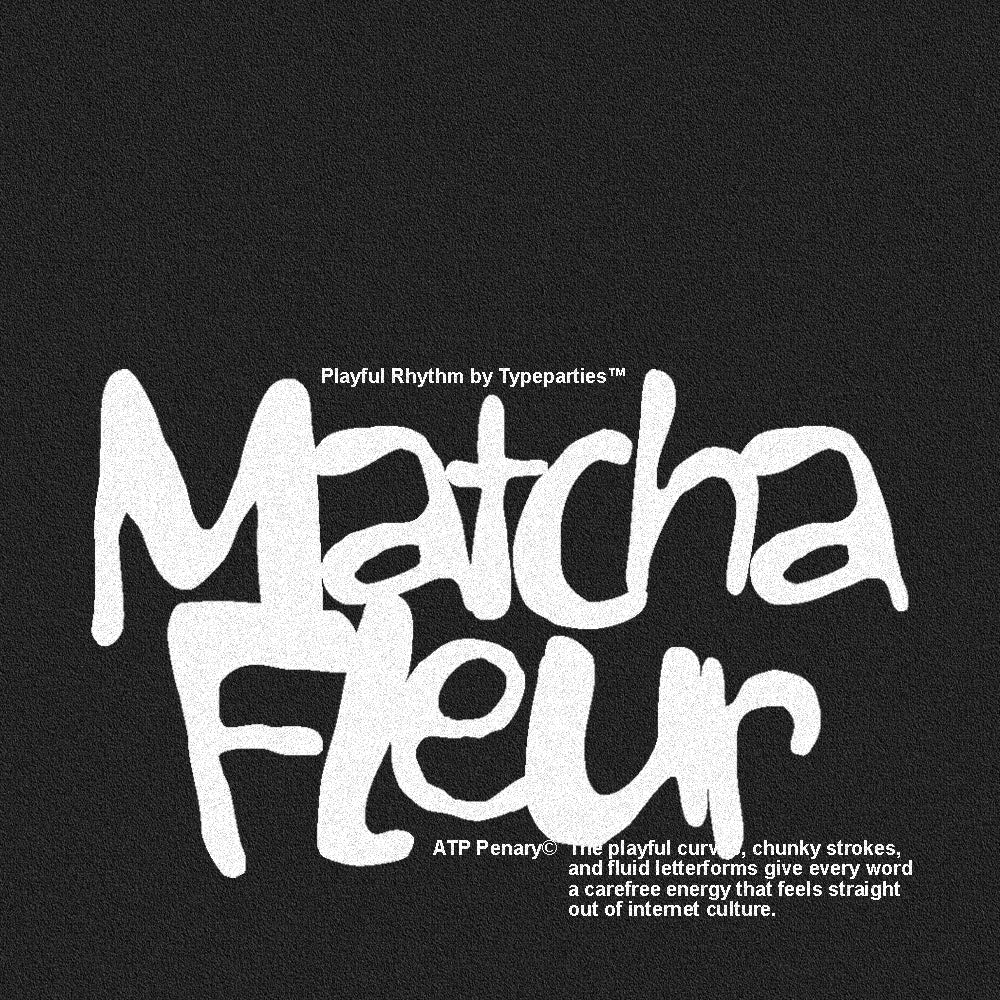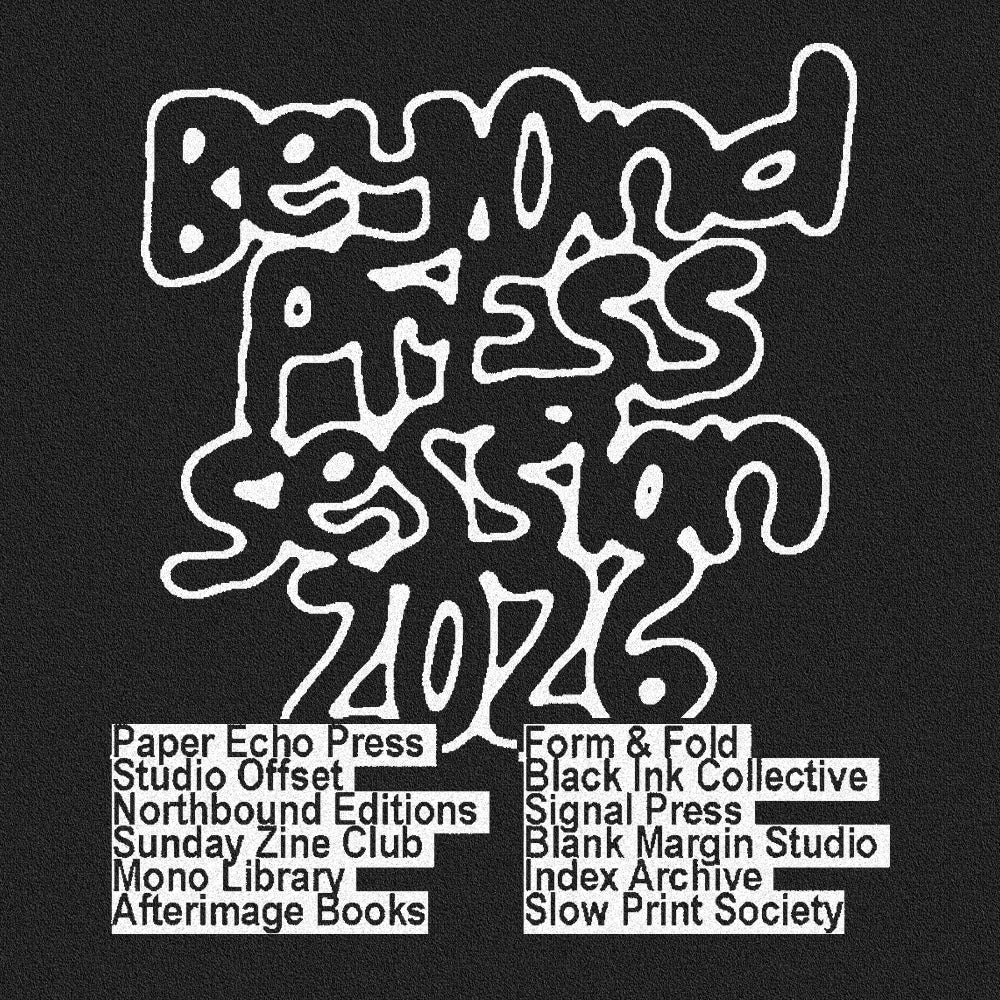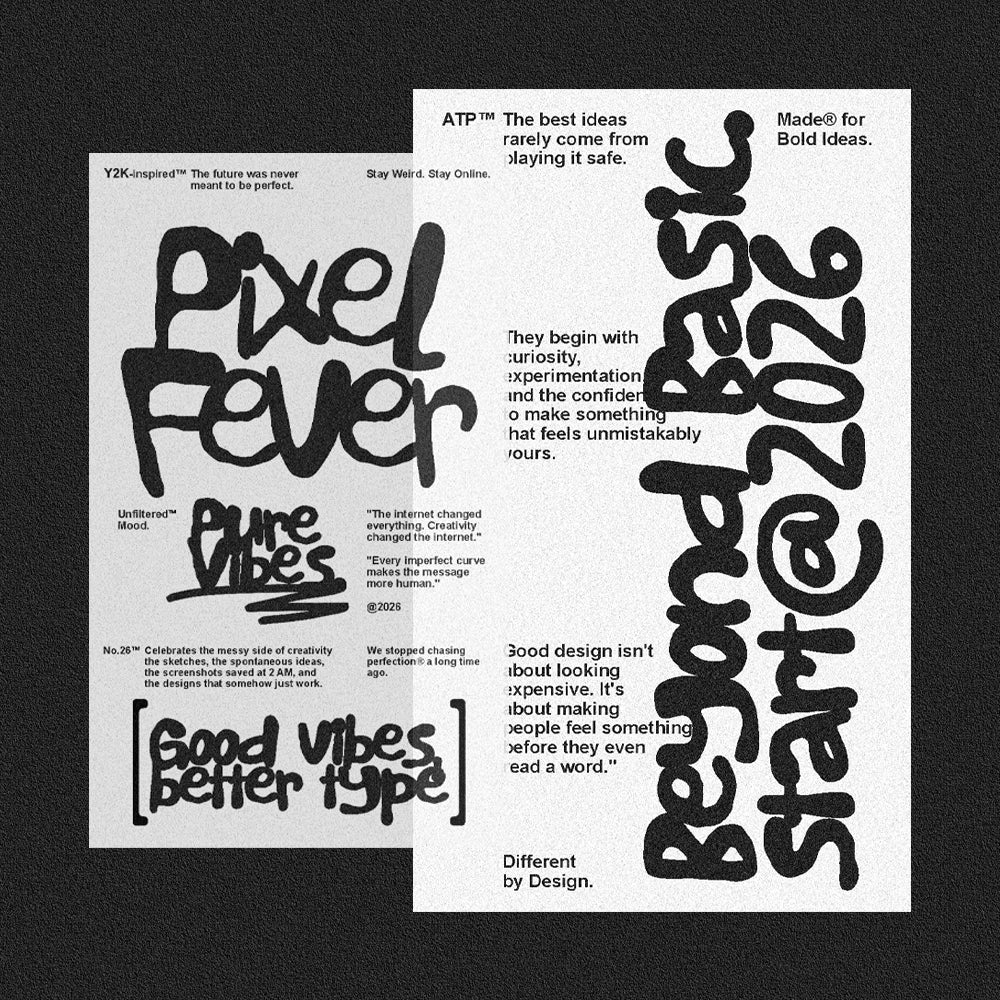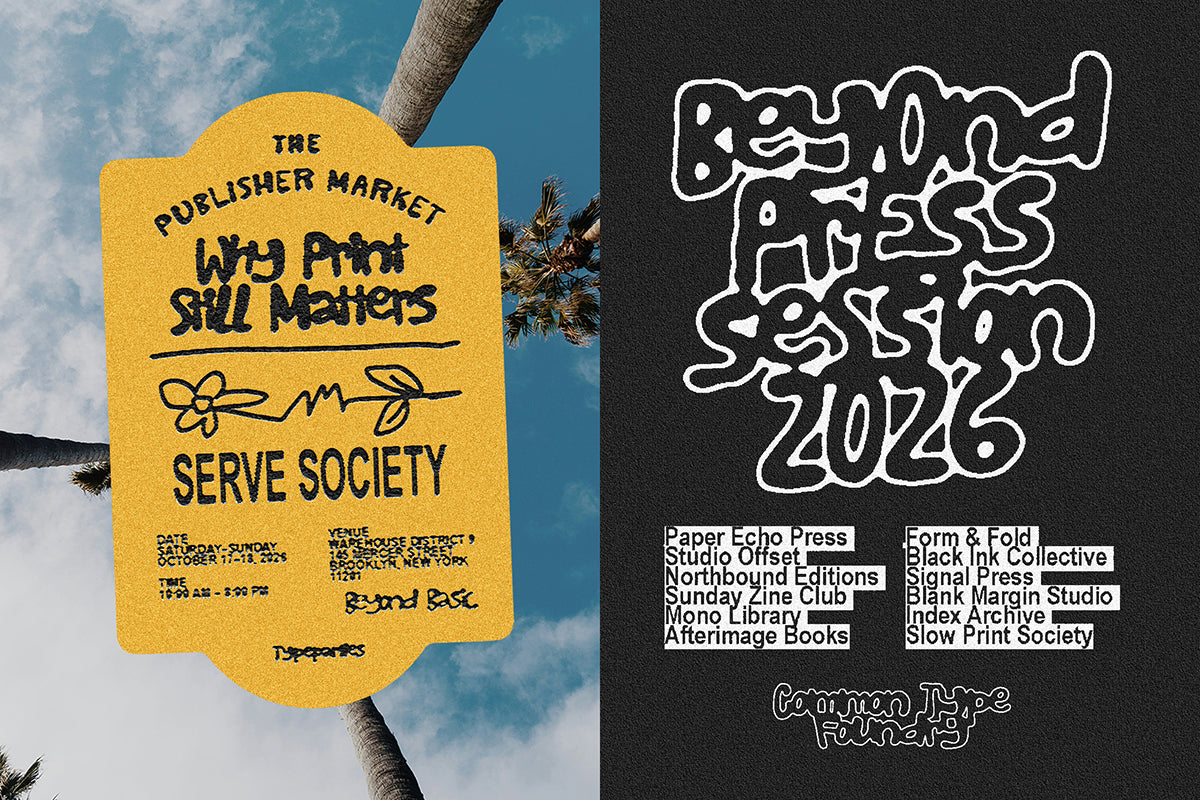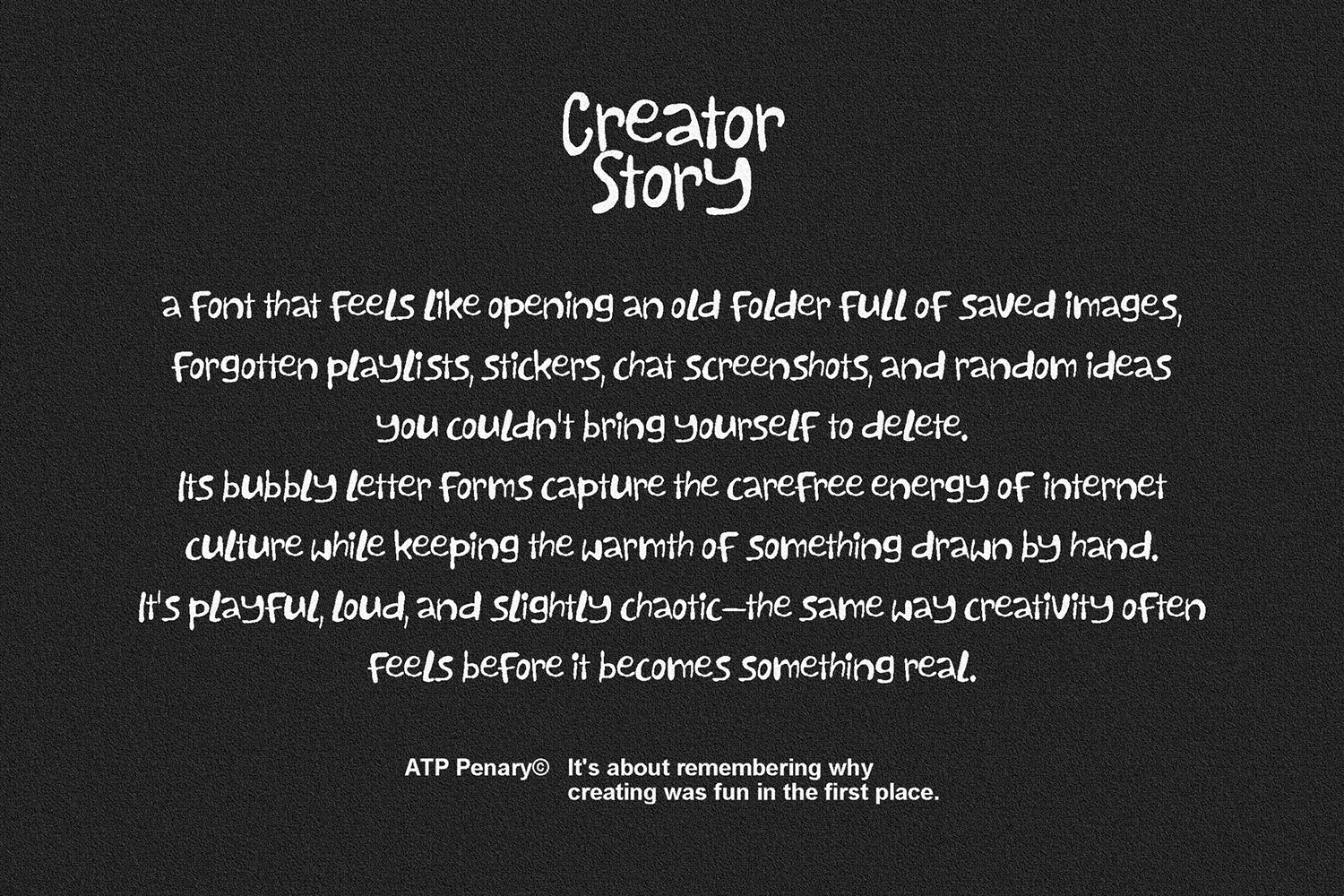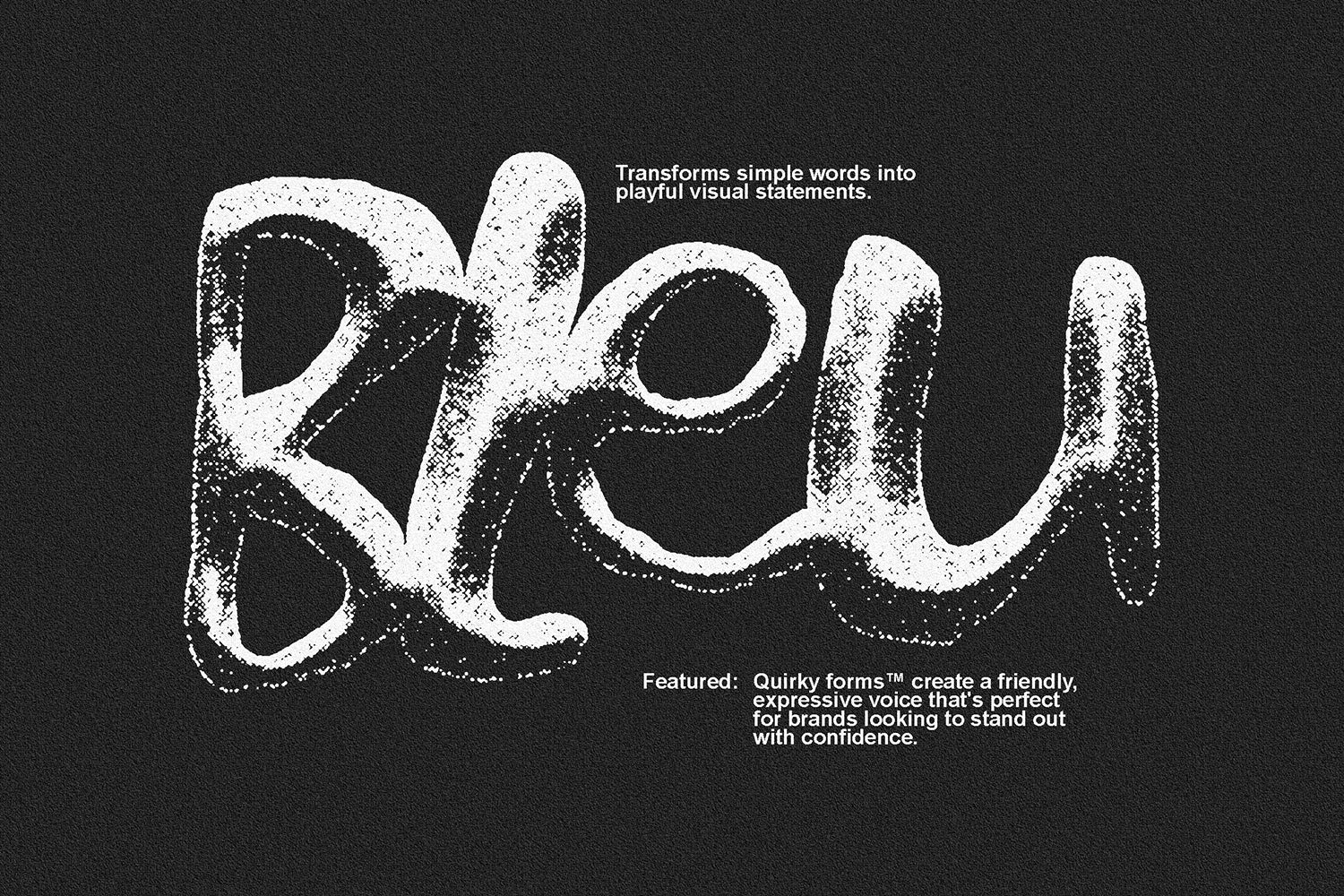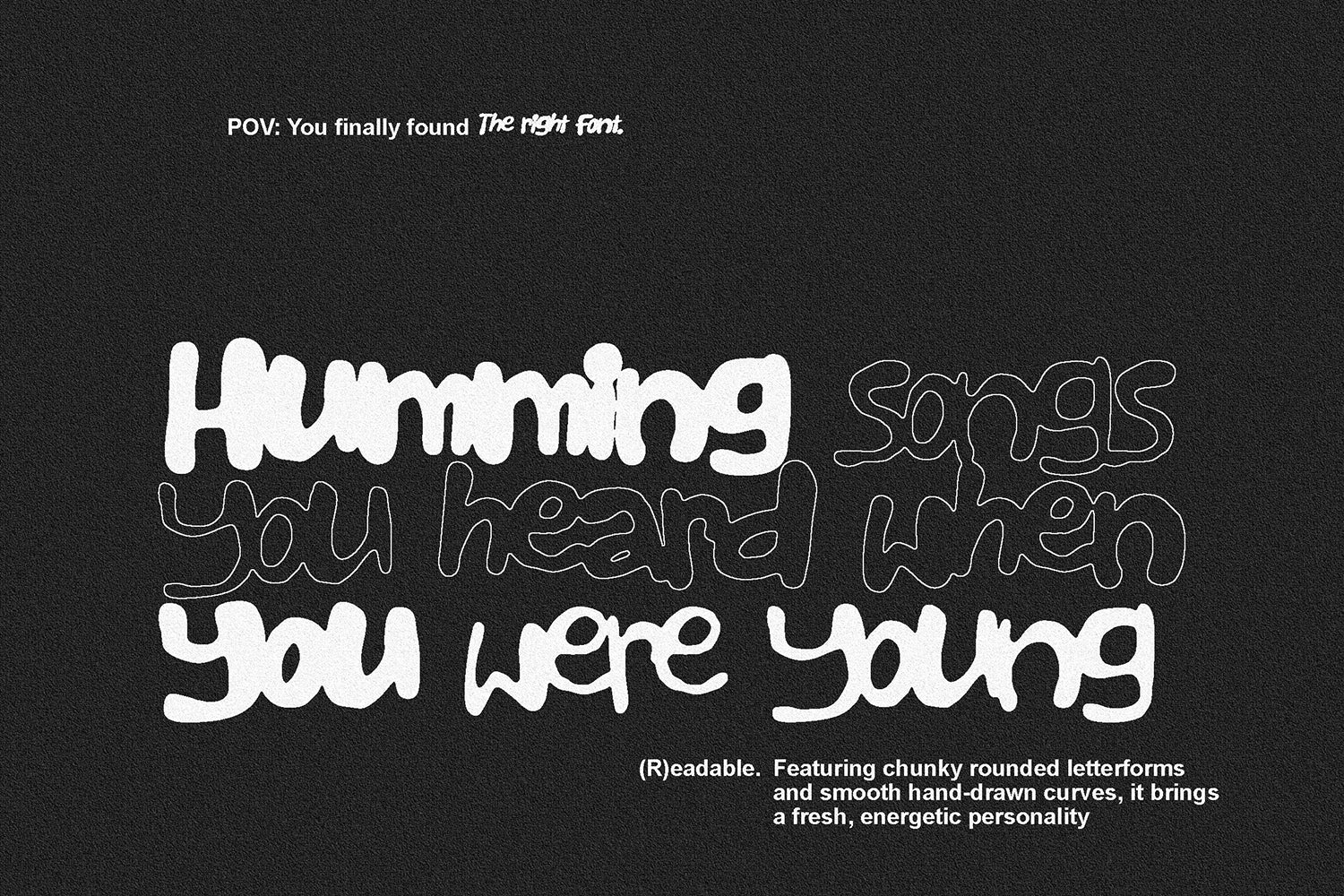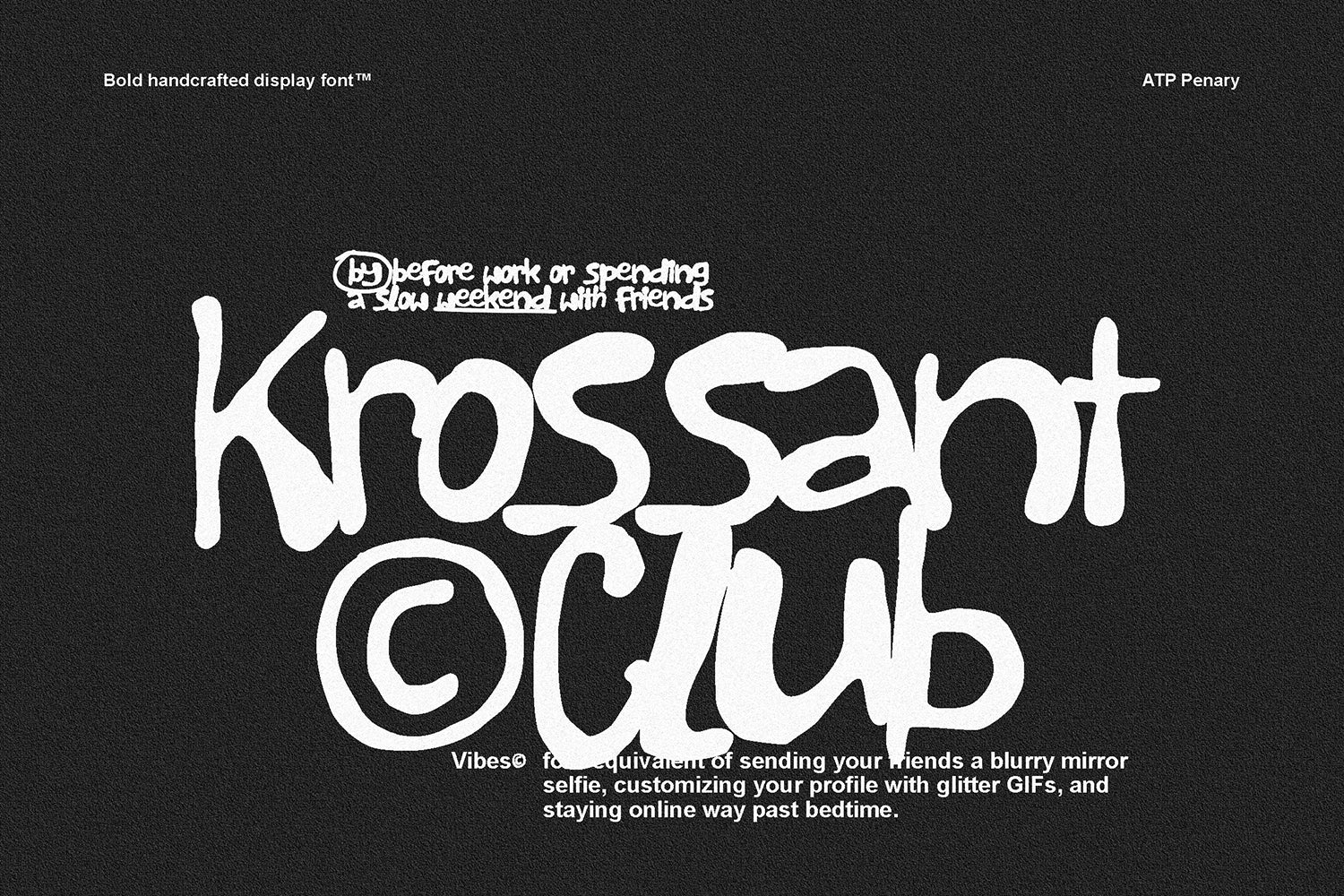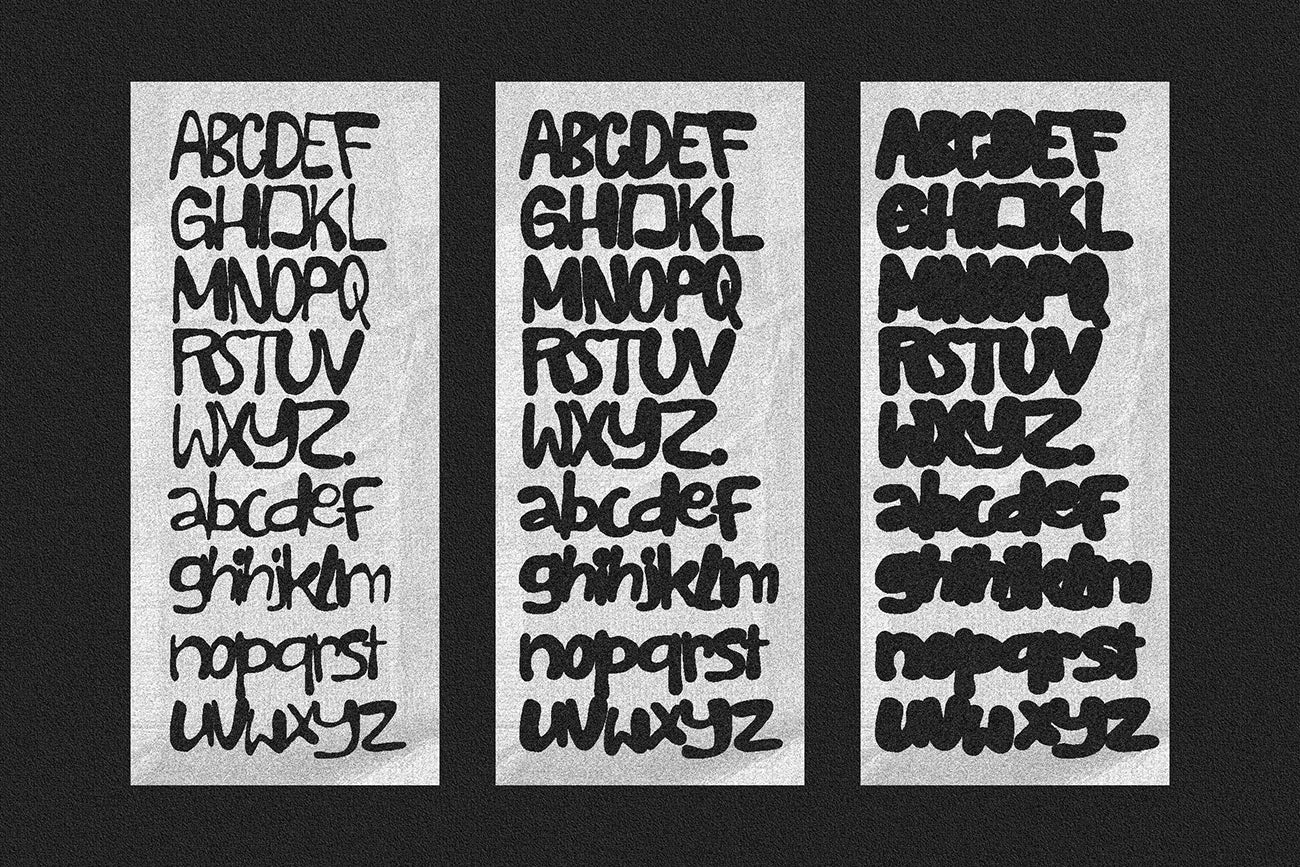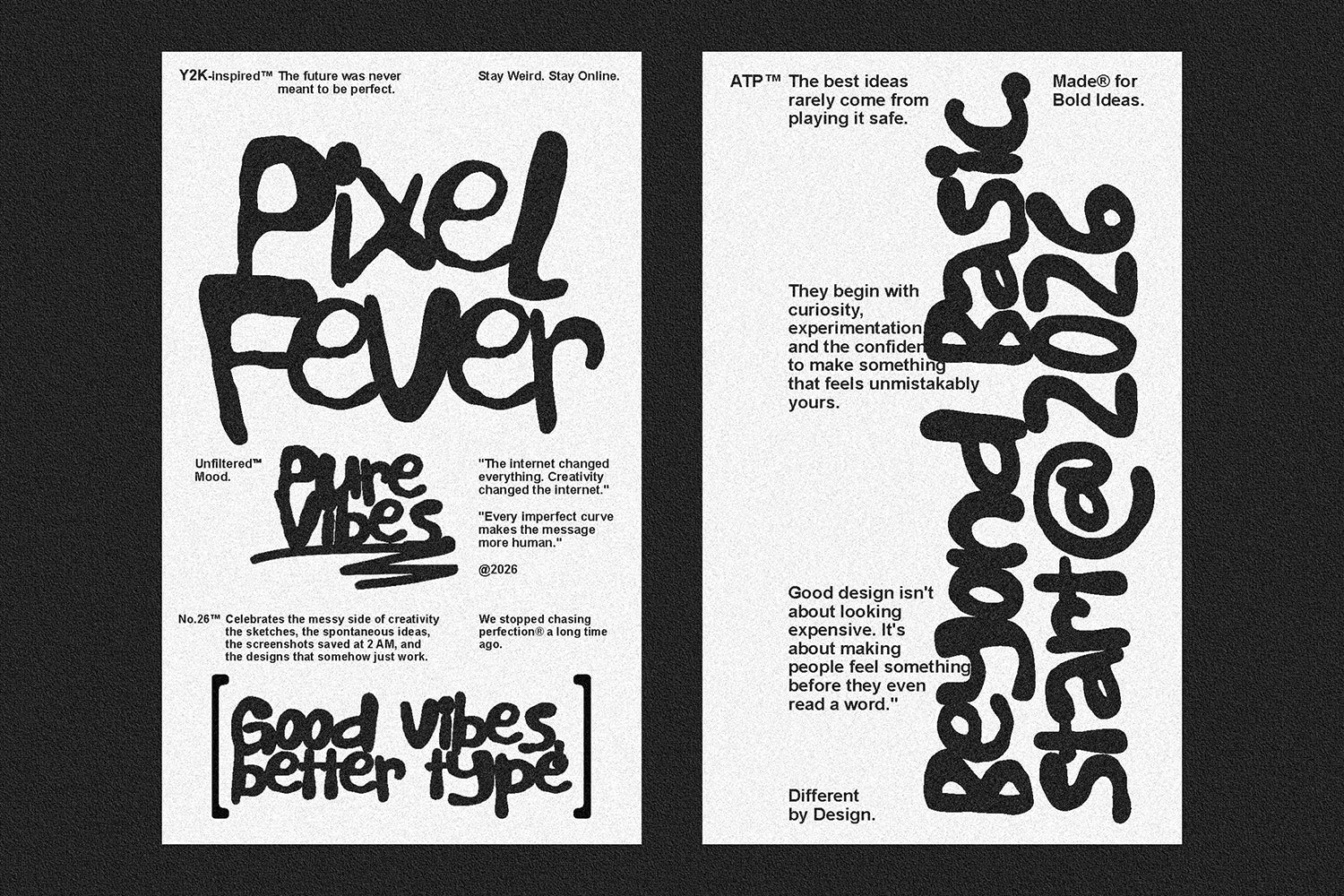
Penary - Bold Playful Chaos Font
A font equivalent of sending your friends a blurry mirror selfie, customizing your profile with glitter GIFs, and staying online way past bedtime. It’s bold, bubbly, and unapologetically fun, built for creatives who'd rather make something memorable than something perfect.
The playful curves, chunky strokes, and fluid letterforms give every word a carefree energy that feels straight out of internet culture. It's expressive, nostalgic, and just chaotic enough to make every headline impossible to ignore.
Whether you're designing for a fashion drop, music artwork, packaging, social media, streetwear, or a brand that lives on vibes instead of rules, Penary brings instant personality to every composition.
Because being different isn't a trend it's the whole aesthetic.
Penary is a bold and playful font featuring expressive curves and chunky strokes, designed for creative projects. It includes uppercase and lowercase letters, numerics, punctuation, and supports multilingual characters, available in multiple formats (.otf, .ttf, .woff, .woff2).